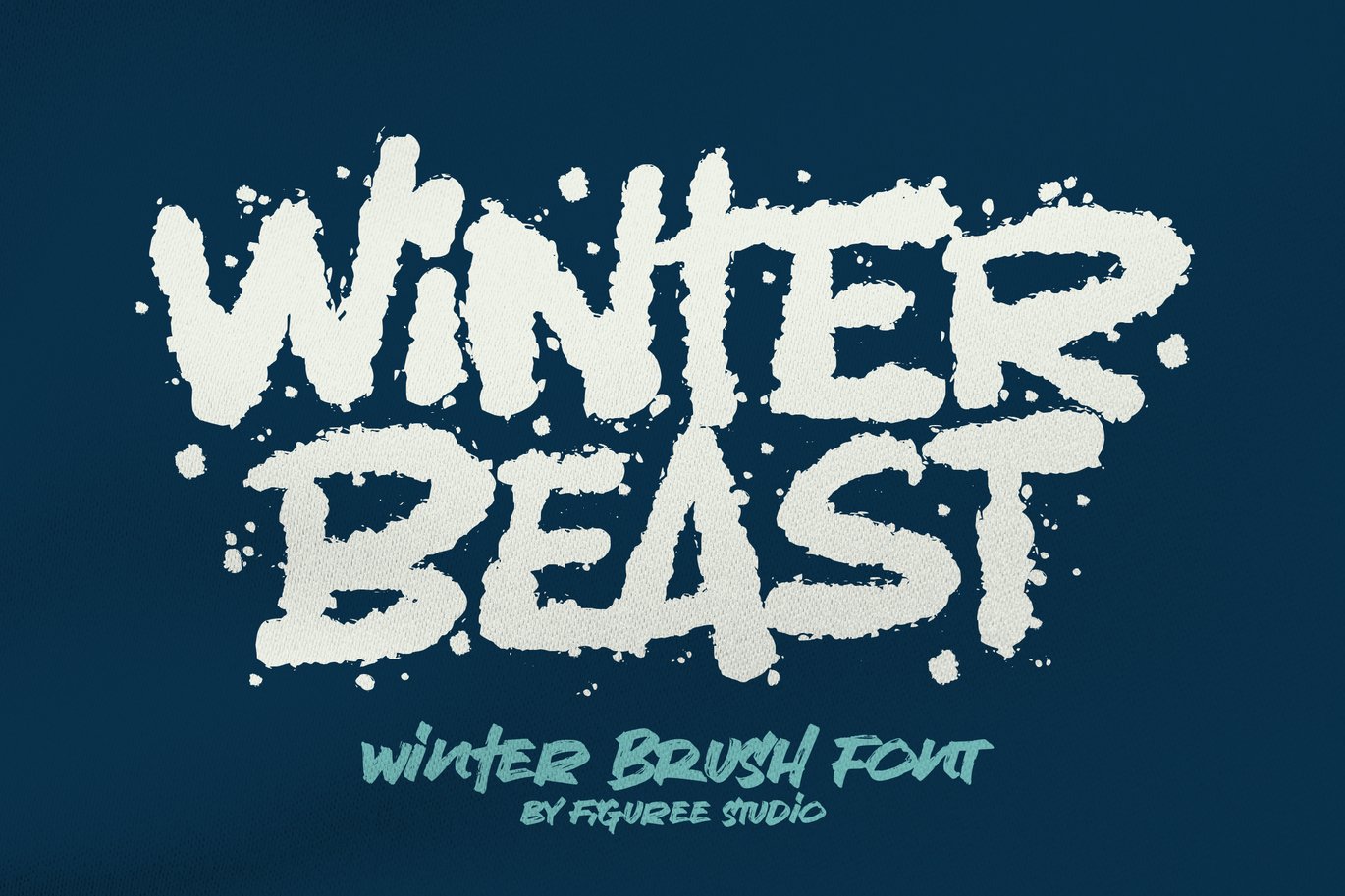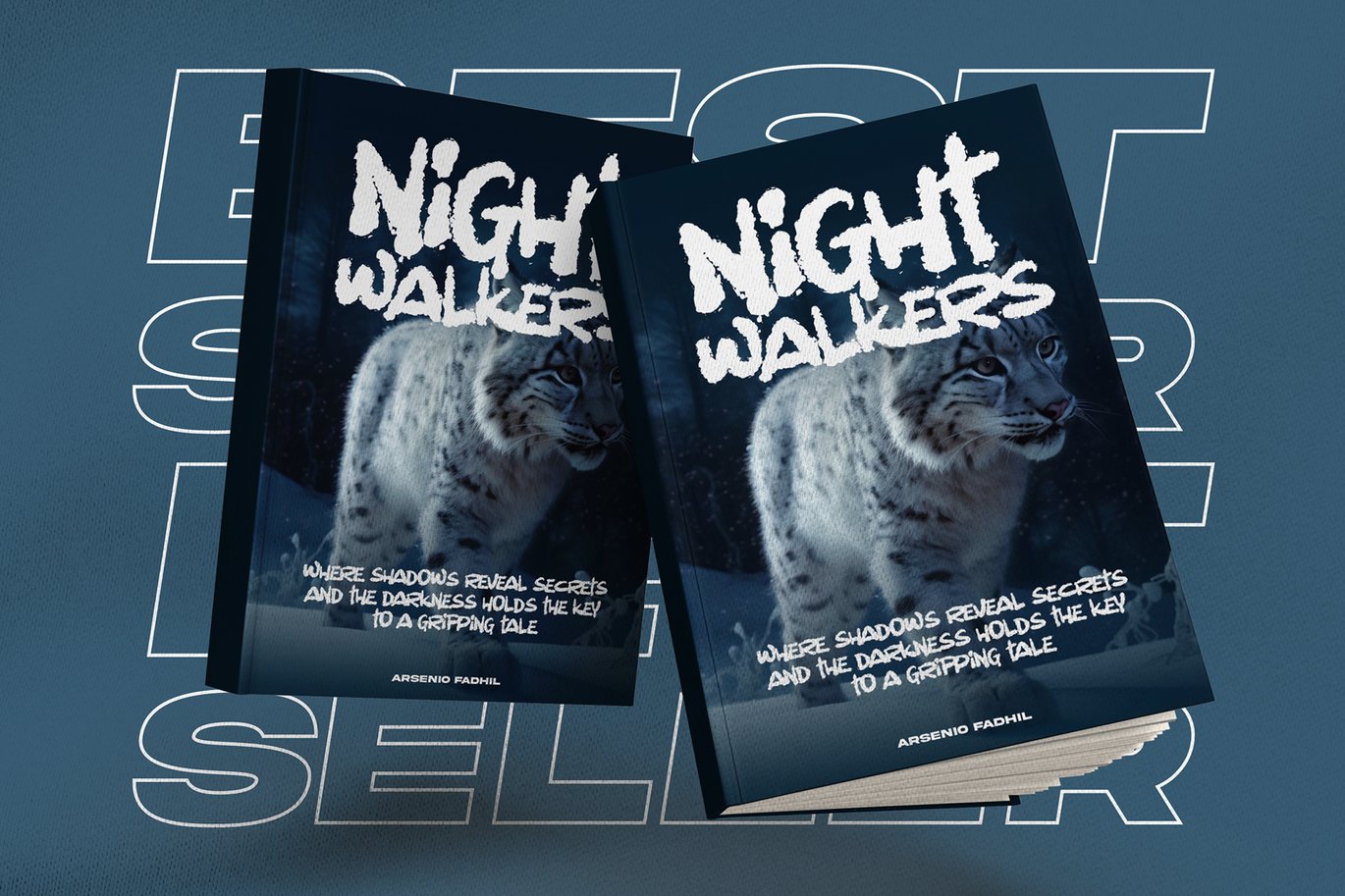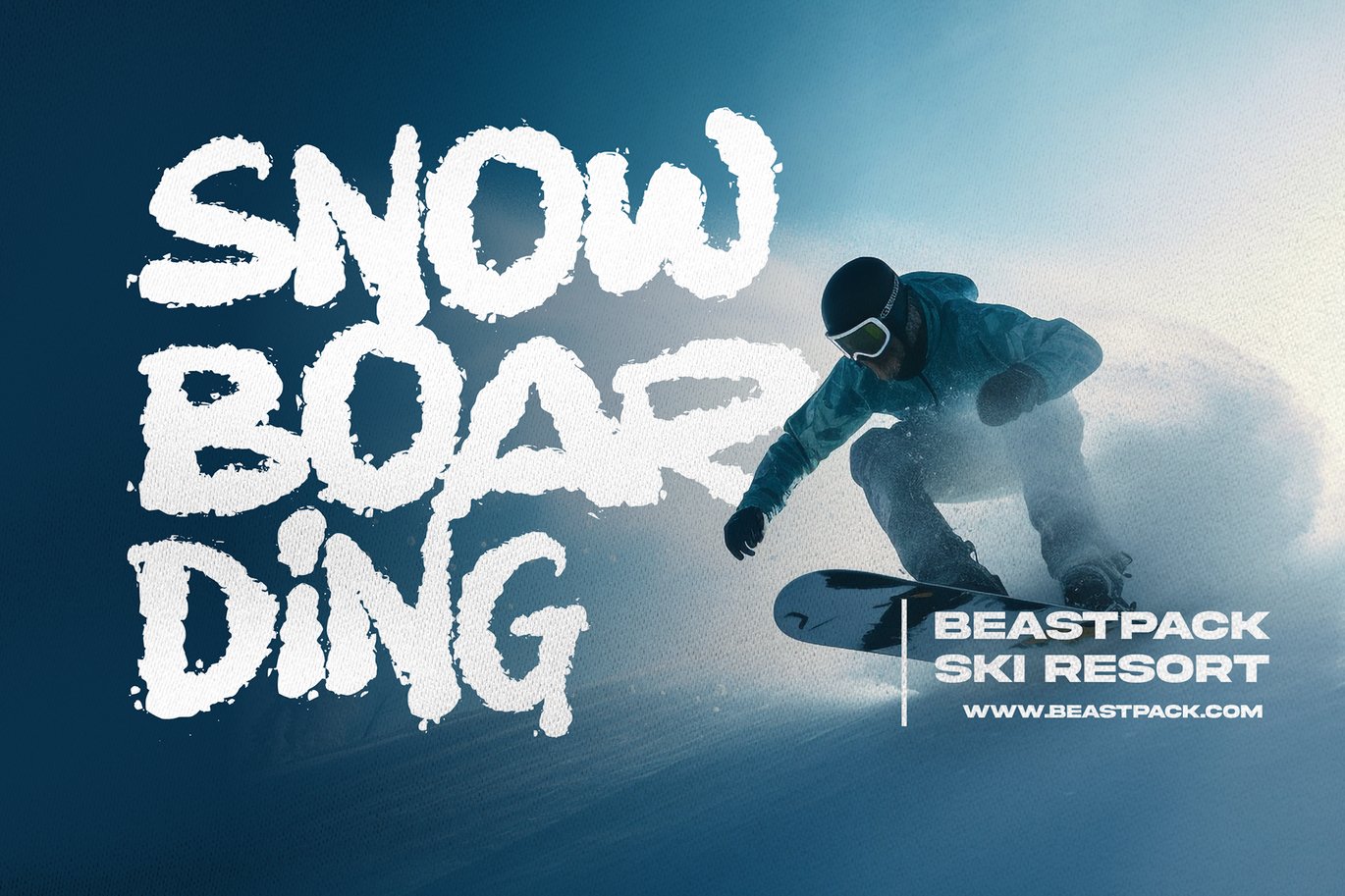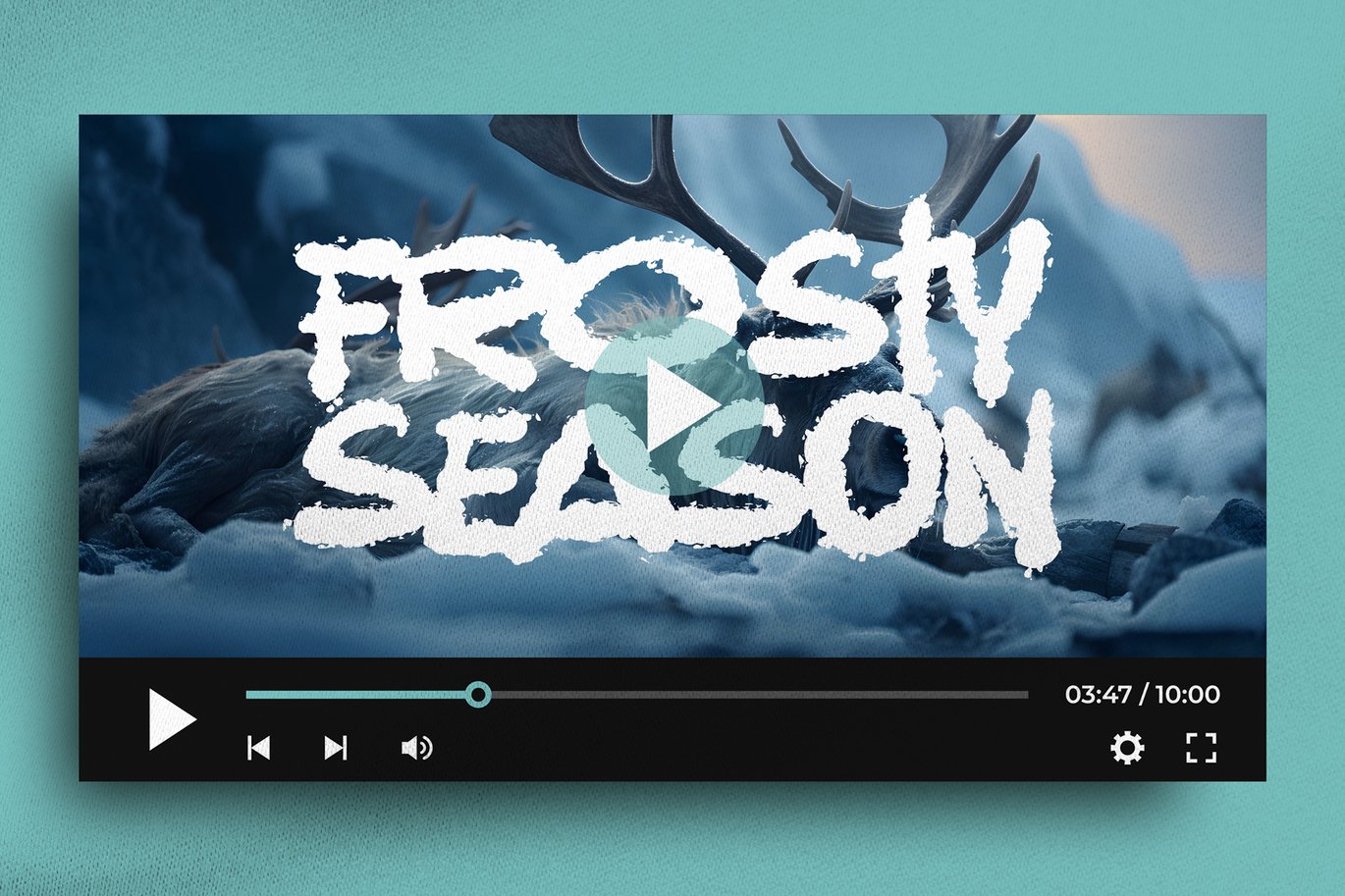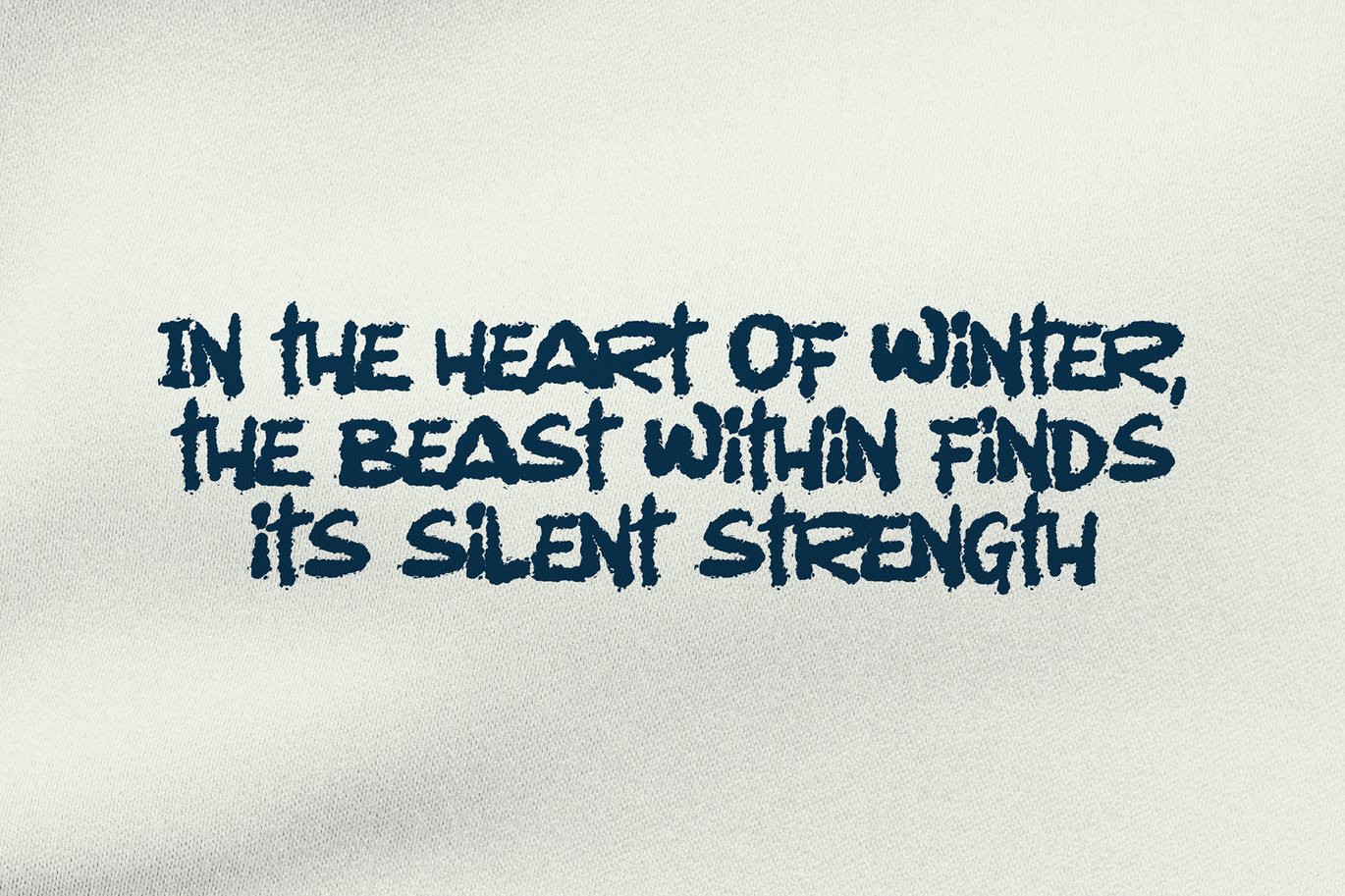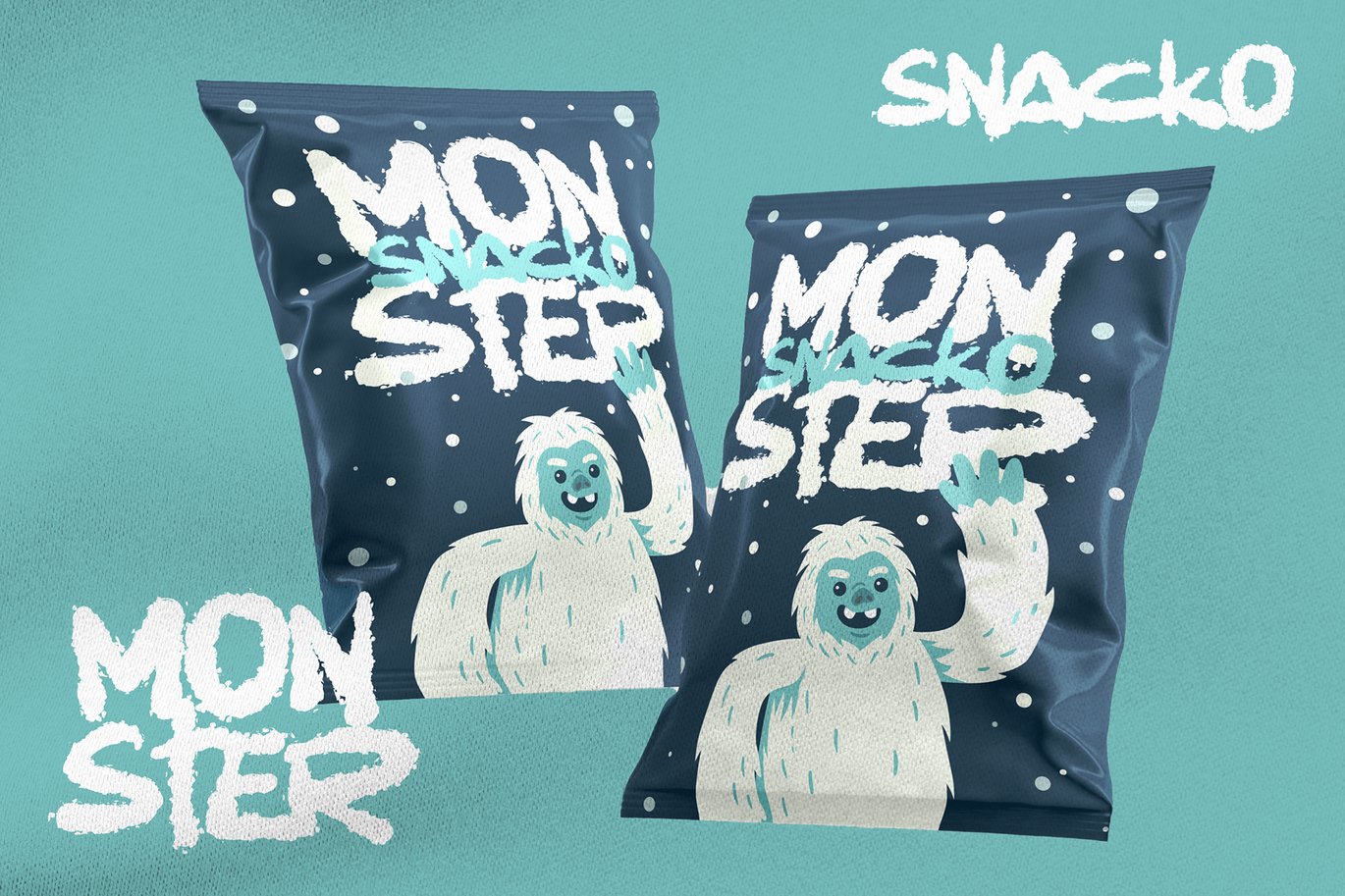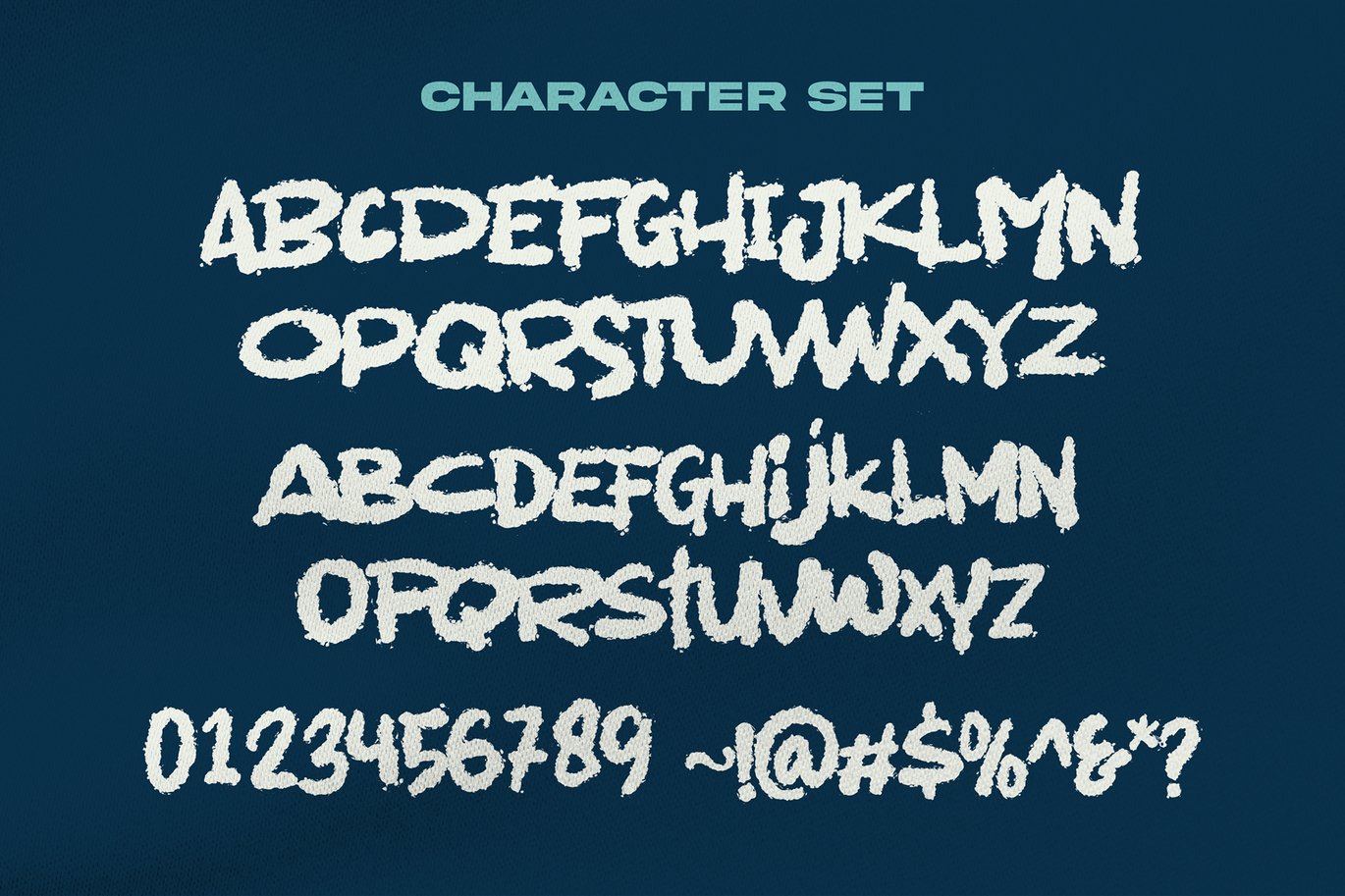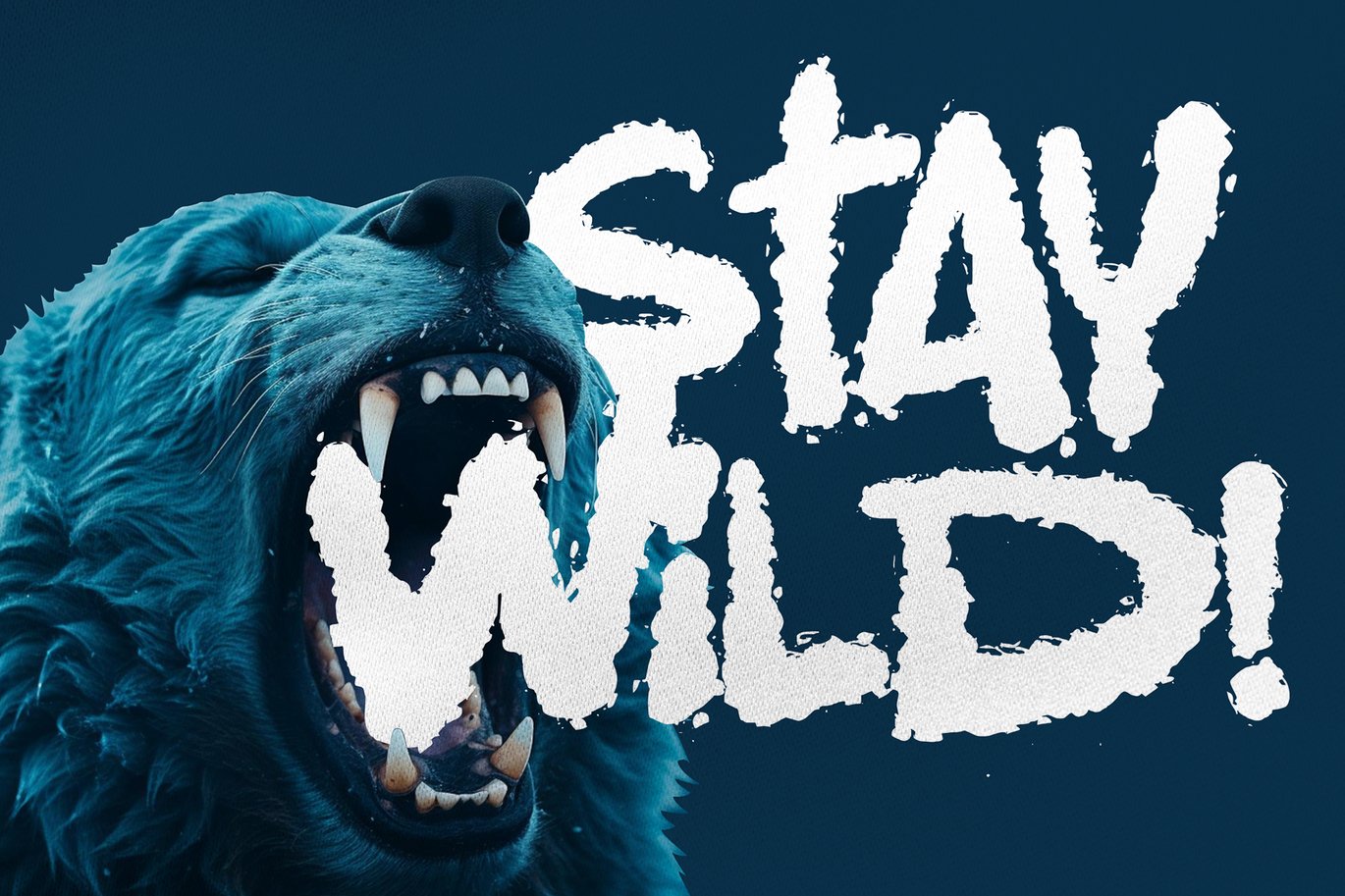
Winter Beast – Strong Brush Font
Winter Beast is a captivating winter brush font that unleashes the untamed spirit of the season. With its bold, brisk strokes, this font encapsulates the raw beauty and power of winter, making it the perfect choice for projects that demand a rugged, cold, and untamed aesthetic. Whether used in winter-themed designs, holiday graphics, or any project that seeks to embody the frosty allure of the season, Winter Beast adds a chilly and visually striking element to your typography, making your text stand out like fresh snow on a moonlit night.